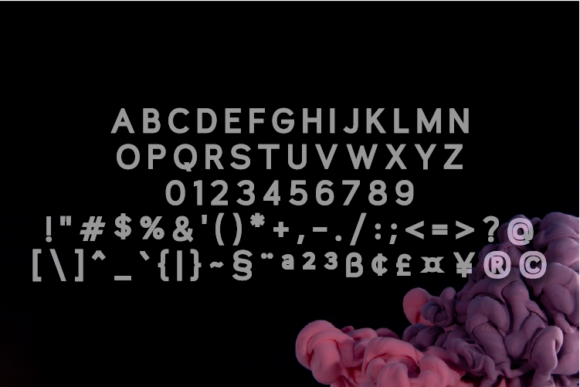
Introduction to Sexyton Font
Sexyton is an elegant and modern sans serif font.
It will complement any design need perfectly with its perfectly balanced mix of the smooth and sharp .